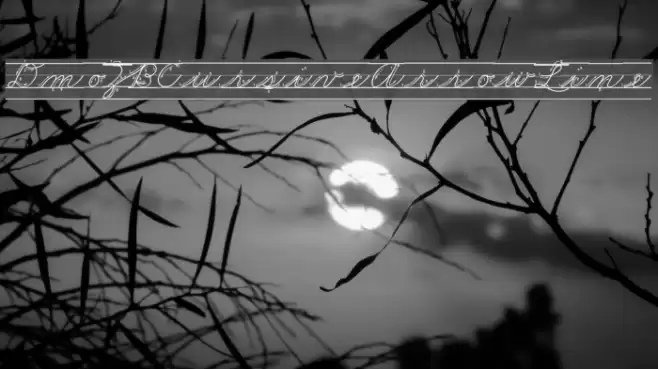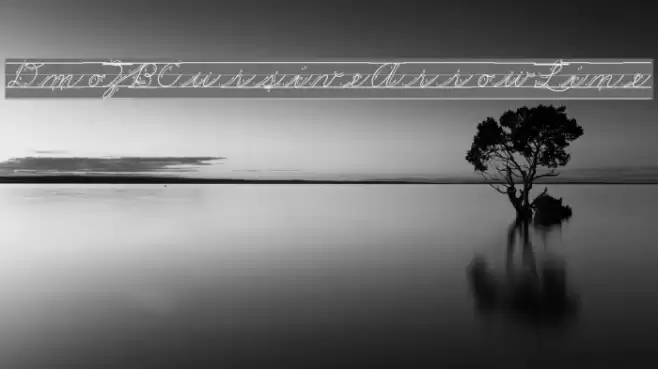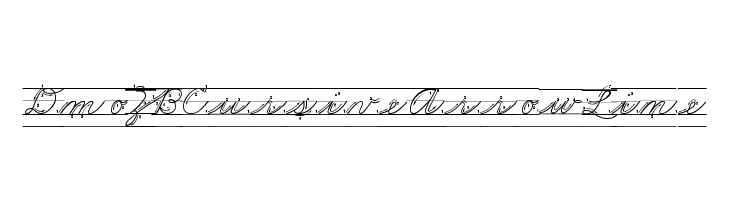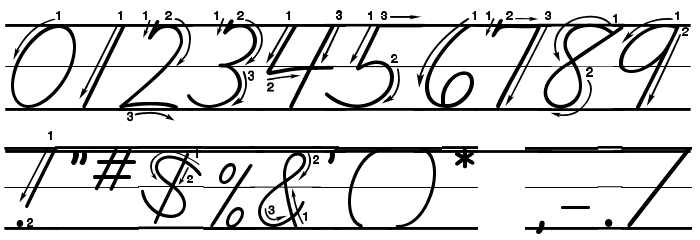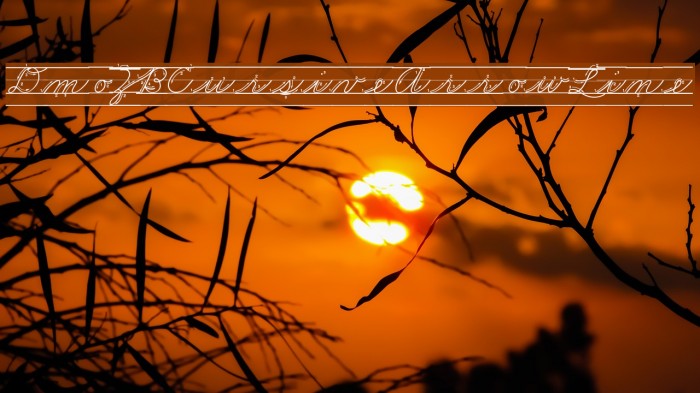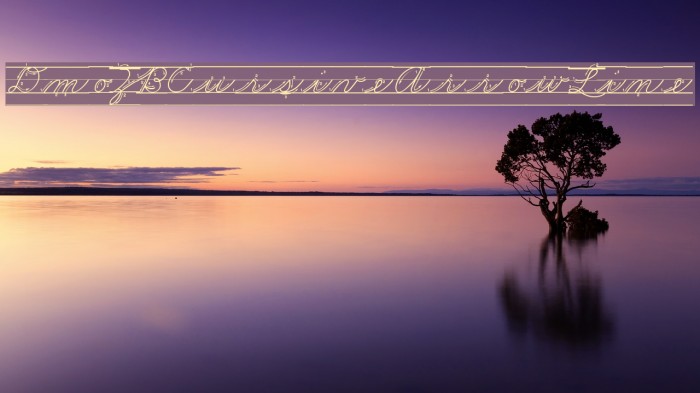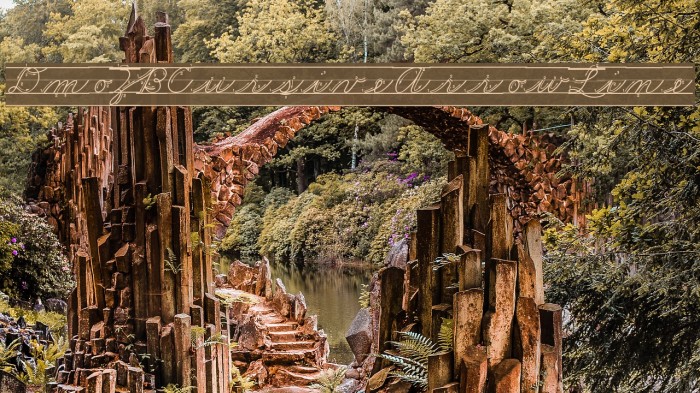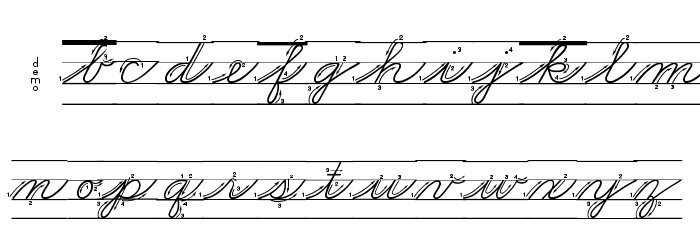
DmoZBCursiveArrowLine Font
DmoZBCursiveArrowLine Description
This elegant cursive font features a fluid and connected style, reminiscent of traditional handwriting. Each letter is carefully crafted with smooth curves and loops, giving it a graceful and sophisticated appearance. The uppercase letters are slightly more ornate, with additional flourishes that add a touch of flair. The lowercase letters maintain a consistent flow, ensuring readability while preserving the artistic nature of the script. Numbers and special characters are designed to match the overall aesthetic, with similar curves and connections. This font is perfect for projects that require a personal touch, such as invitations, greeting cards, or branding materials.
A graceful cursive font with fluid connections and elegant curves from Uncategorized fonts.
- Proposed Projects: Ideal for wedding invitations, personal stationery, branding, and elegant signage.
- Character Spacing: Tight
- Overall Style: Classic
- Use Case: Headlines, Invitations, Personal Correspondence